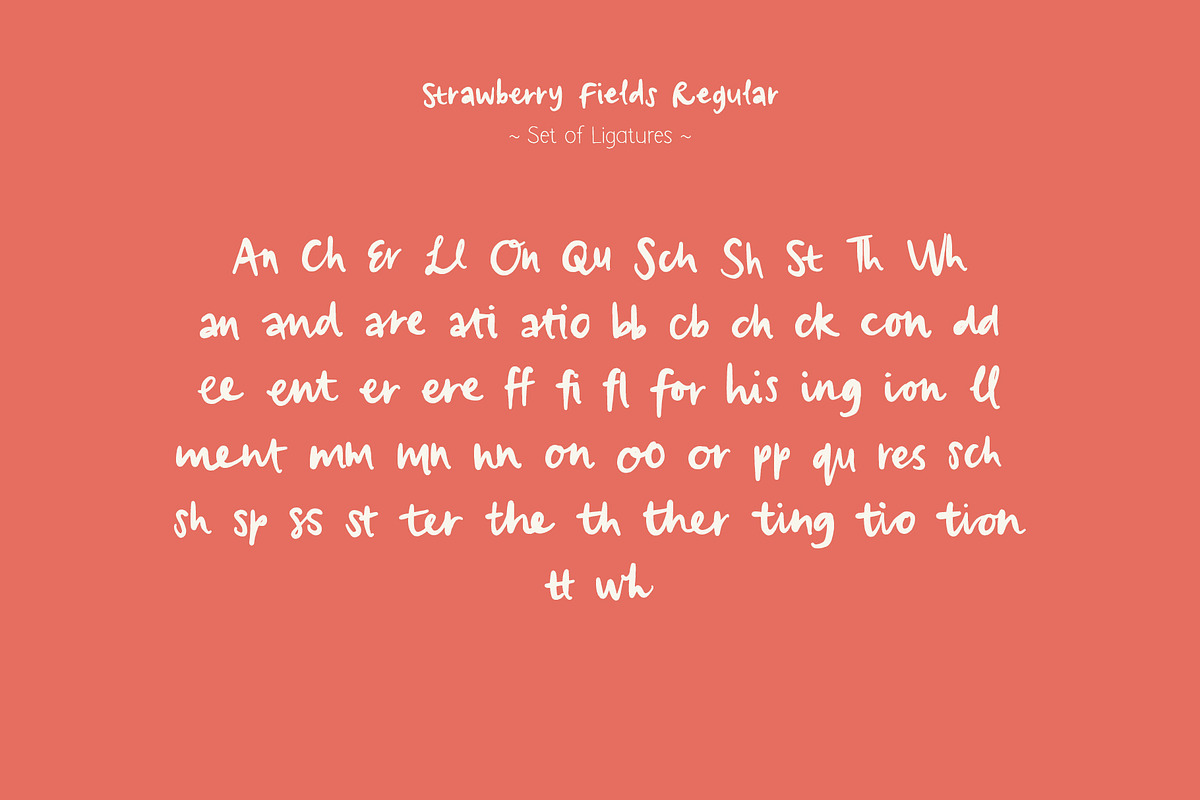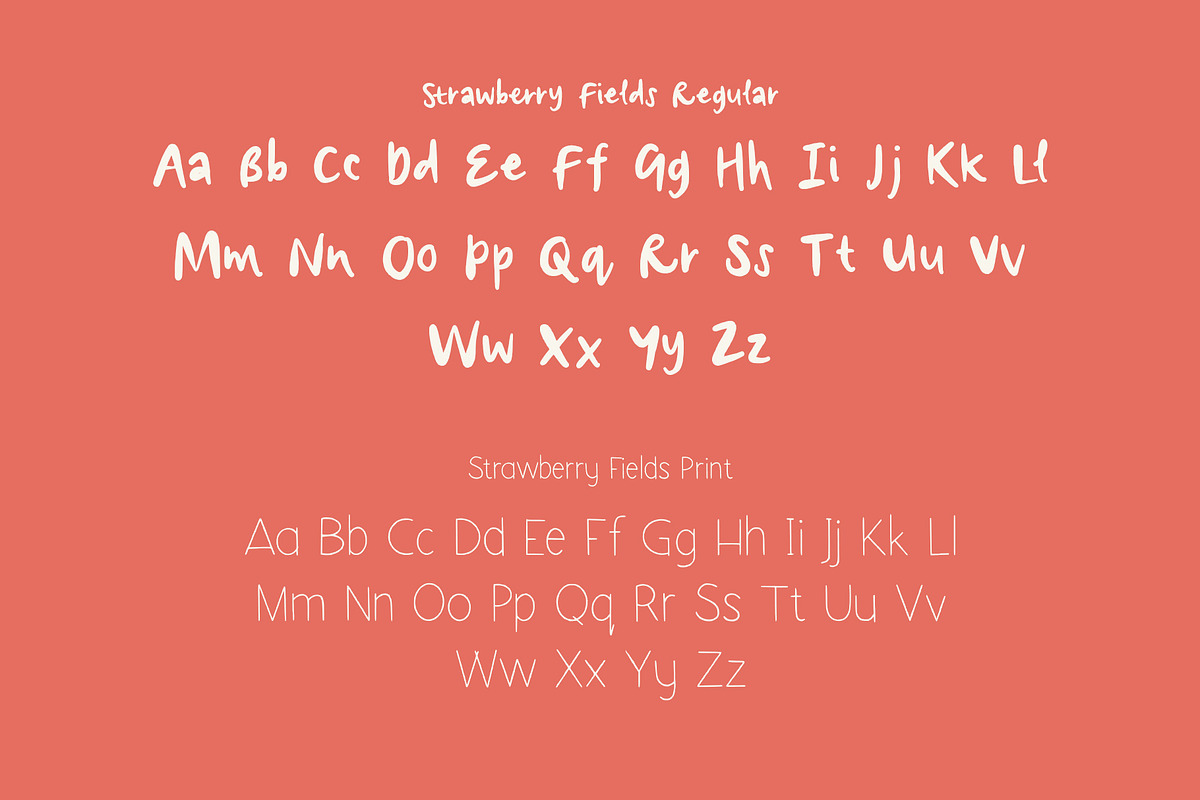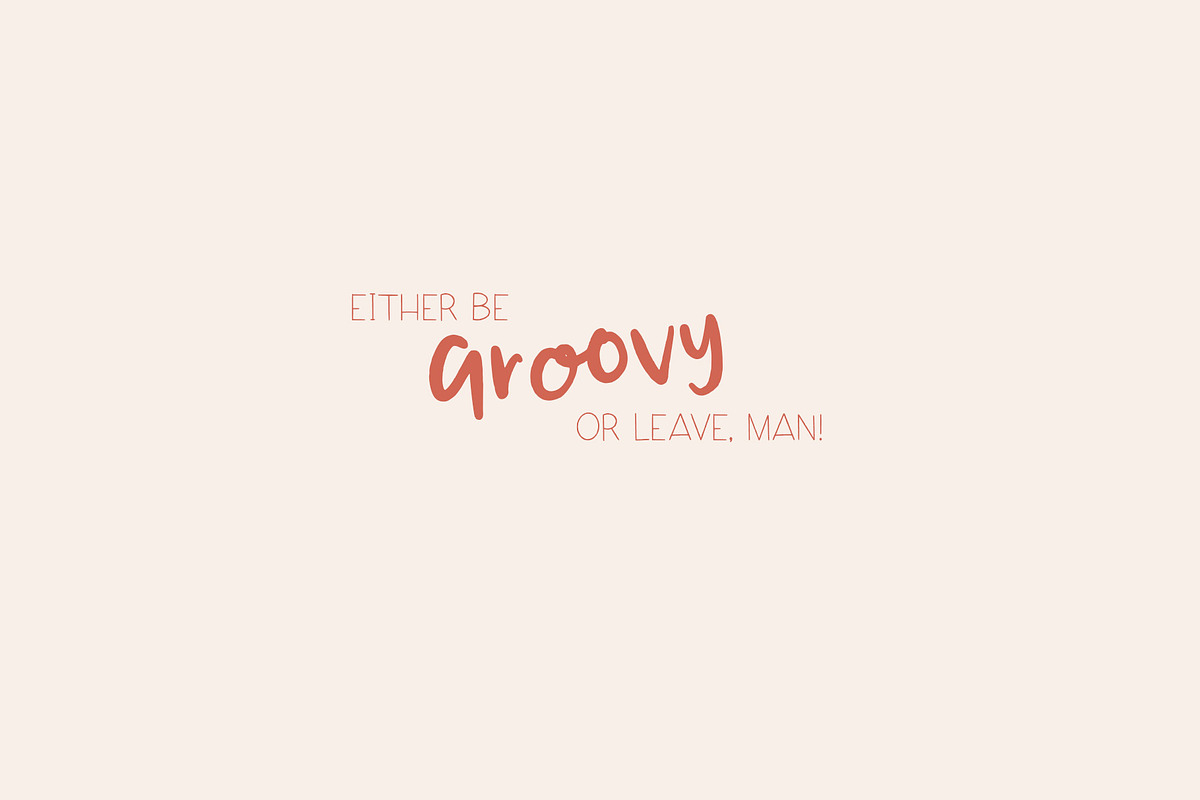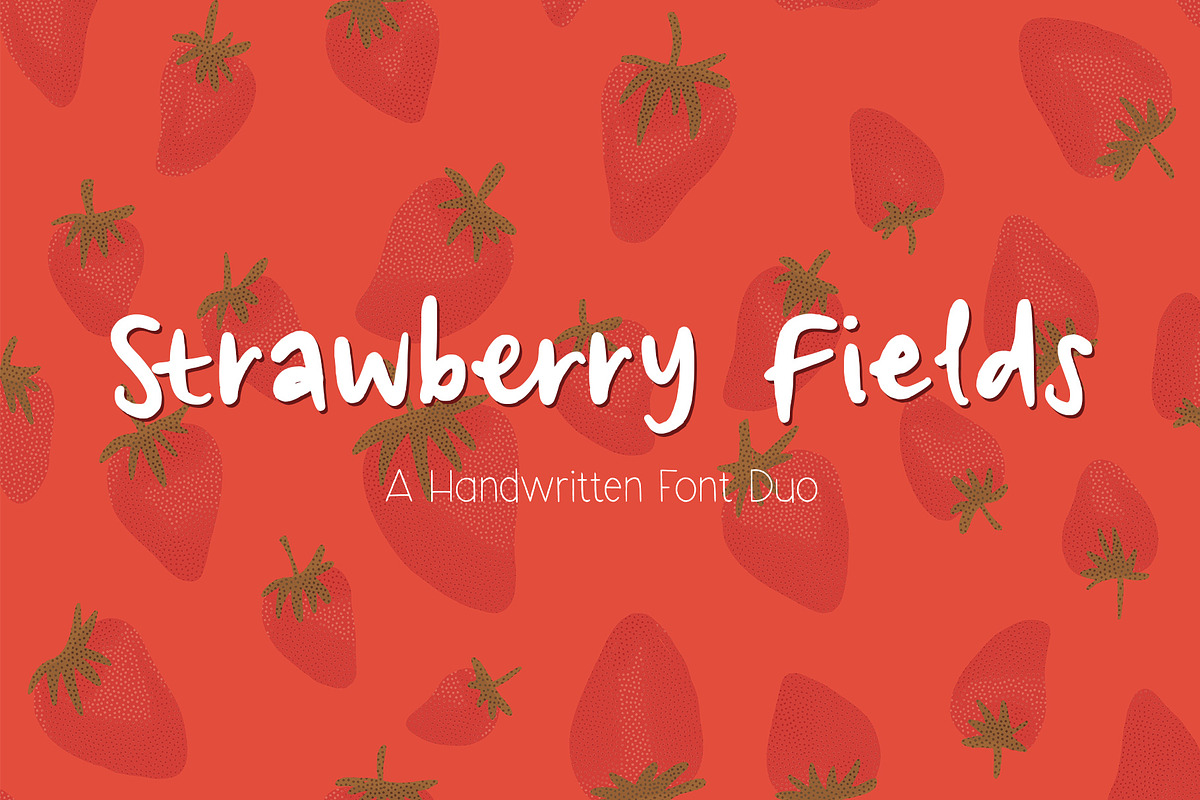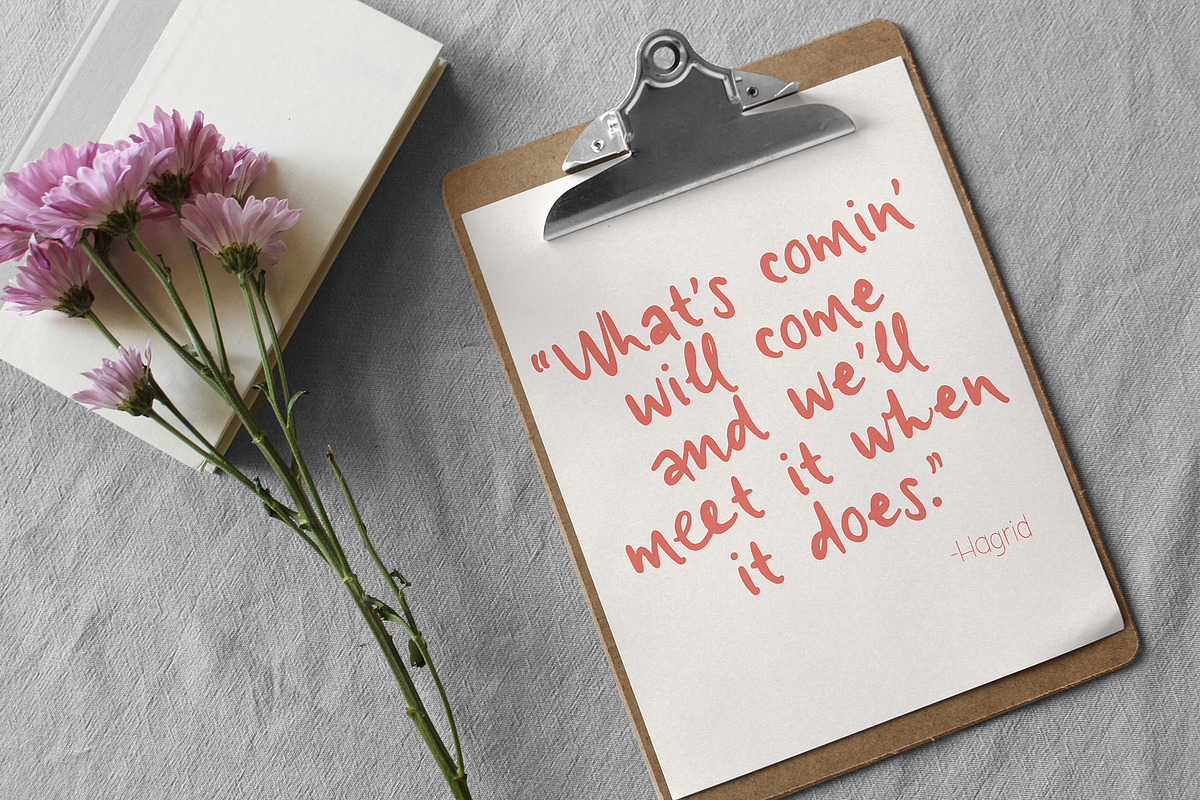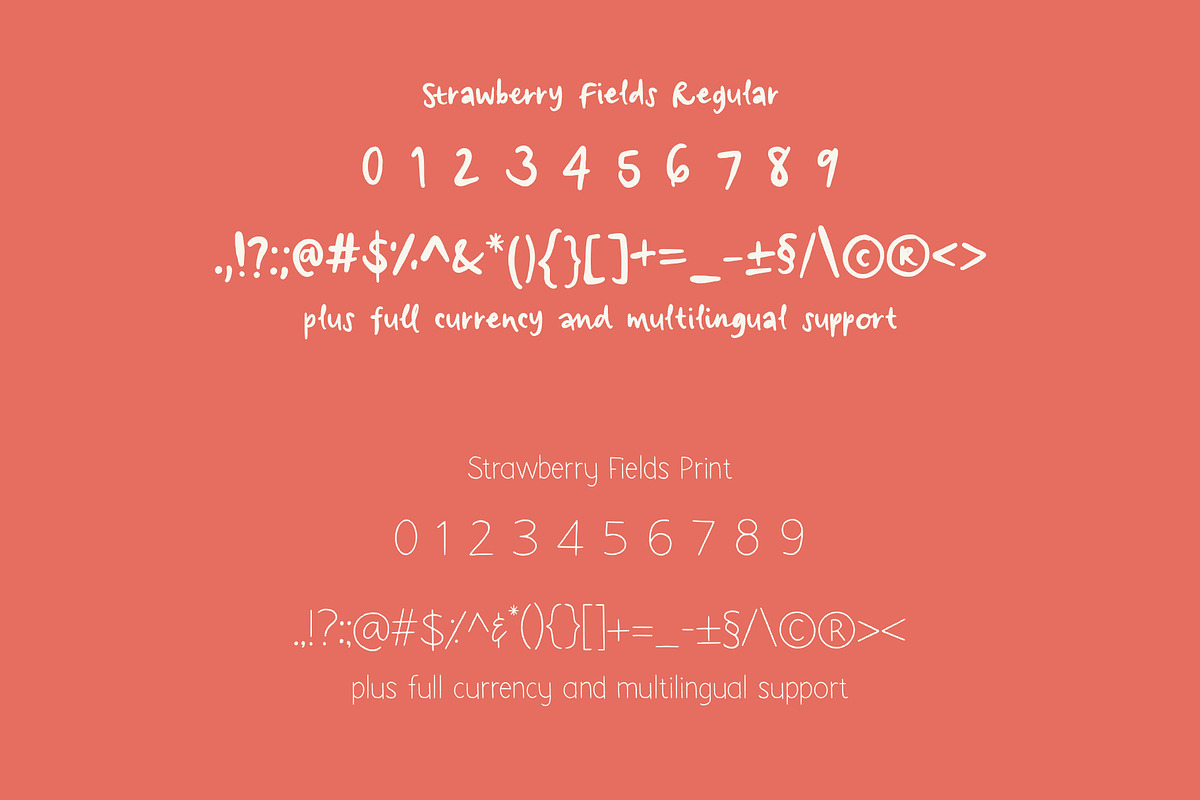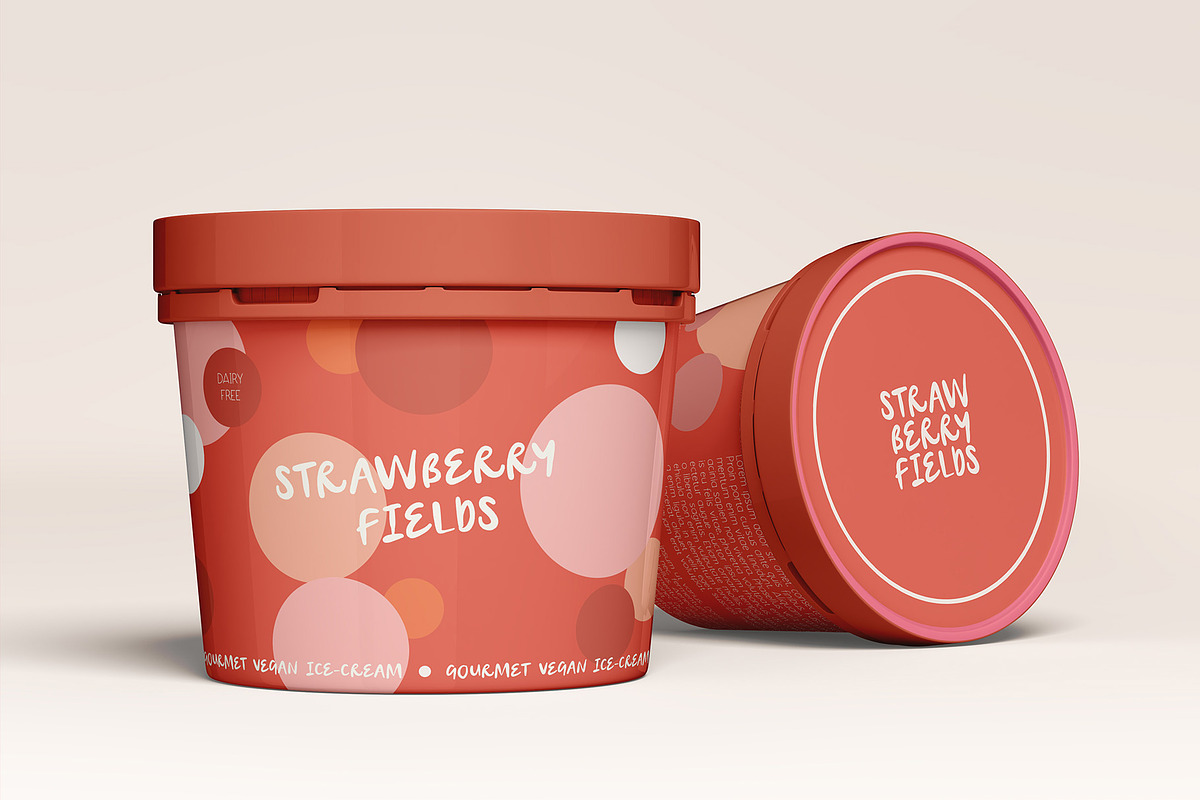
Strawberry Fields Font Duo
A font duo with a chunky, brush script paired with a neat sans serif. This duo would work well in a variety of applications including product and branding design, posters or illustrative quotes. Both are strong and can be used on their own or with other fonts. Both offer multilingual support.
- Both offer multilingual support.
- Strawberry Fields Regular
- StrawberryFields Print Regular